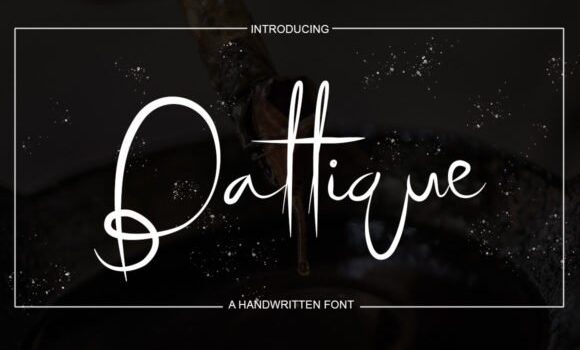
battique
Battique Font – Free Download Introduction to Battique Font Battique is a beautiful handwritten font made for packaging products, labels, flyers, posters, invitation cards, name cards, mockup products, and any other design that requires quality handwritten touch. 📸 Preview Gallery